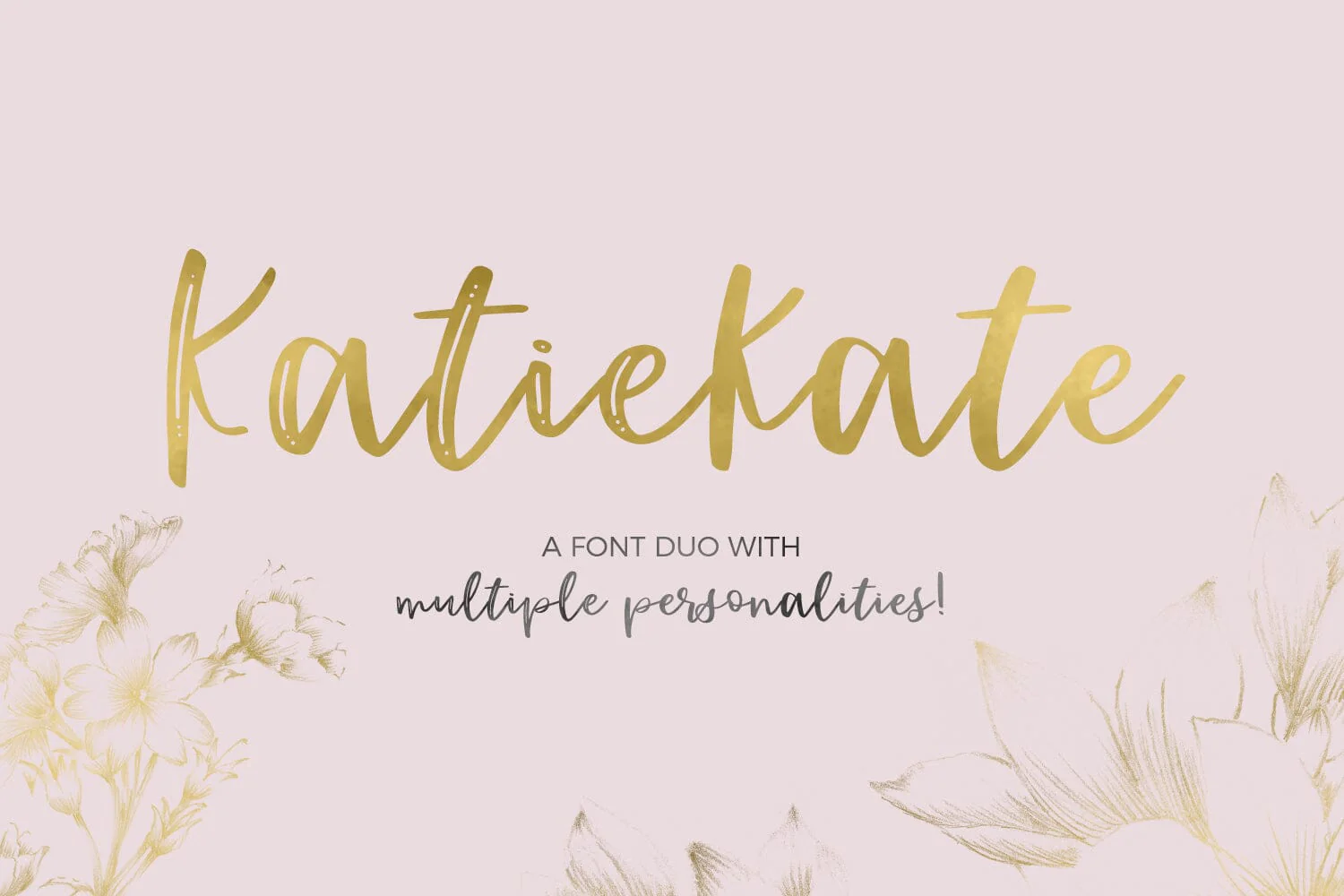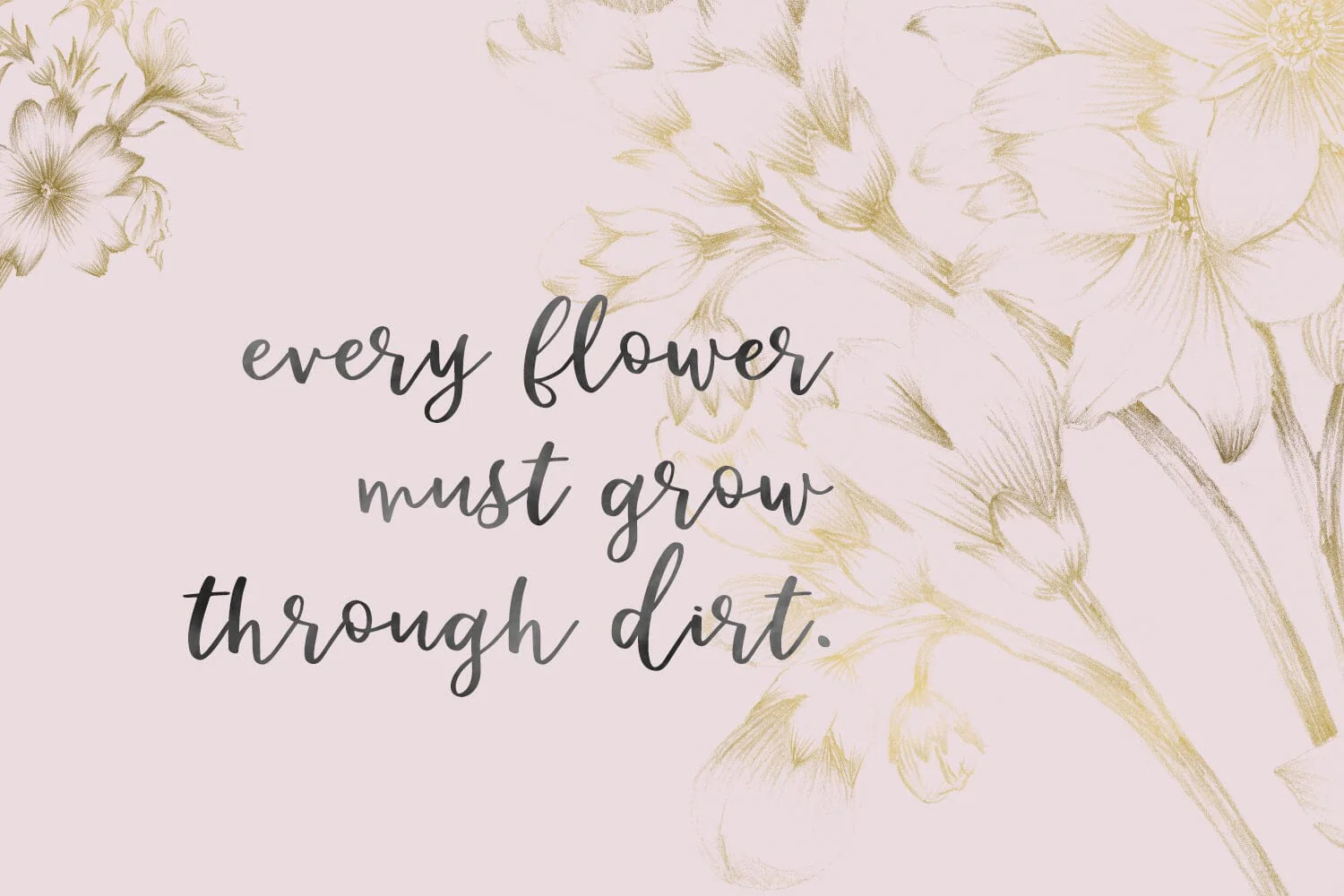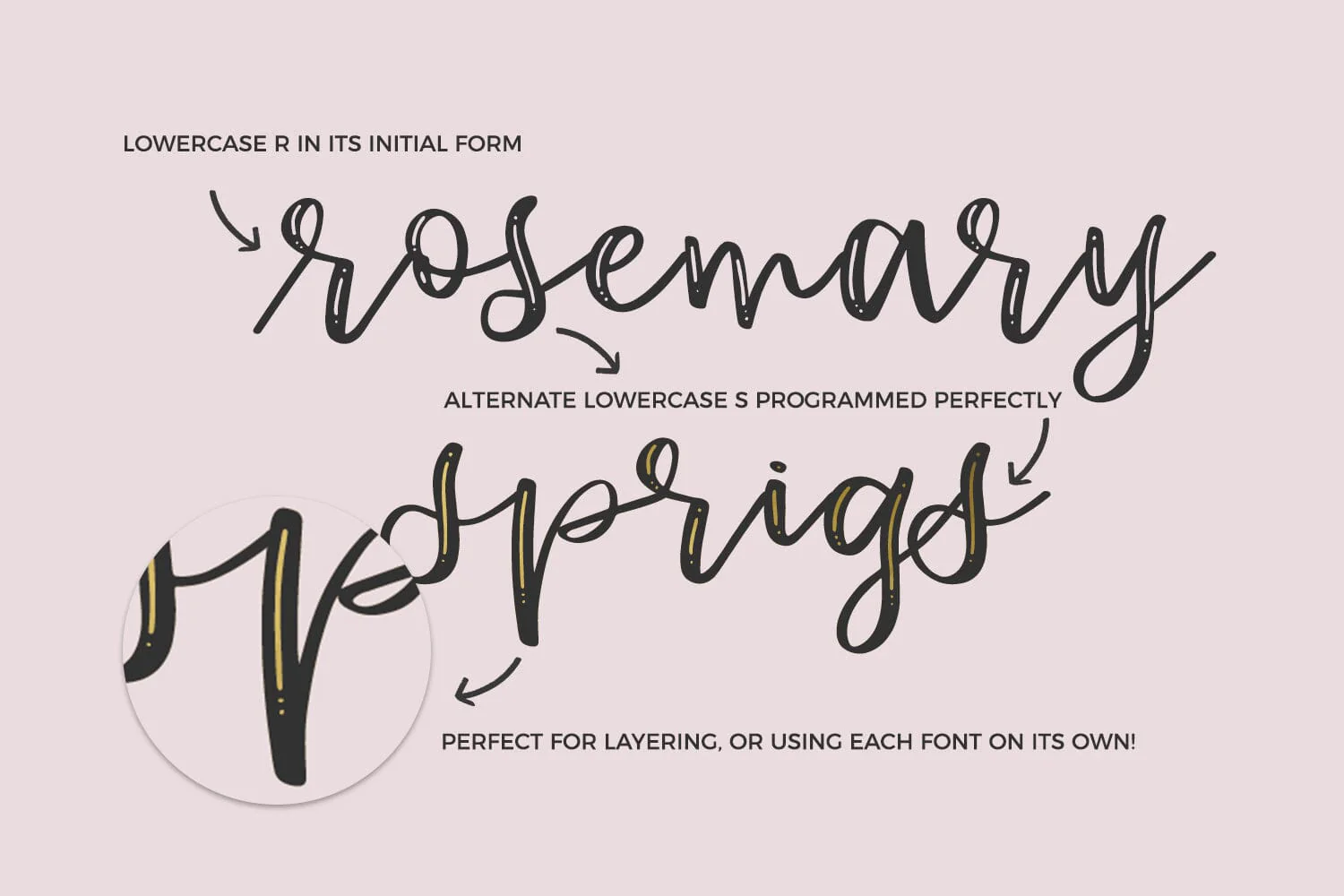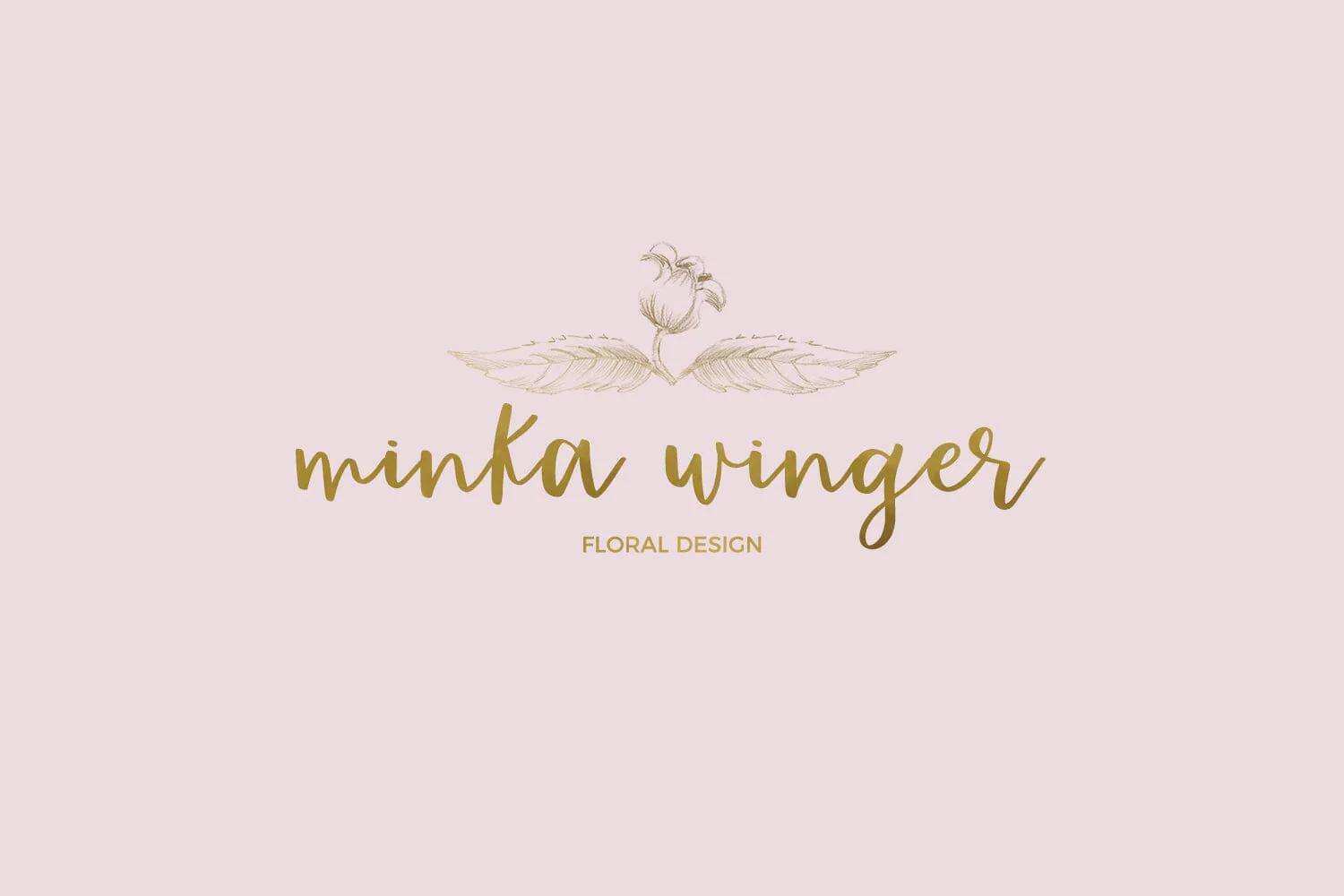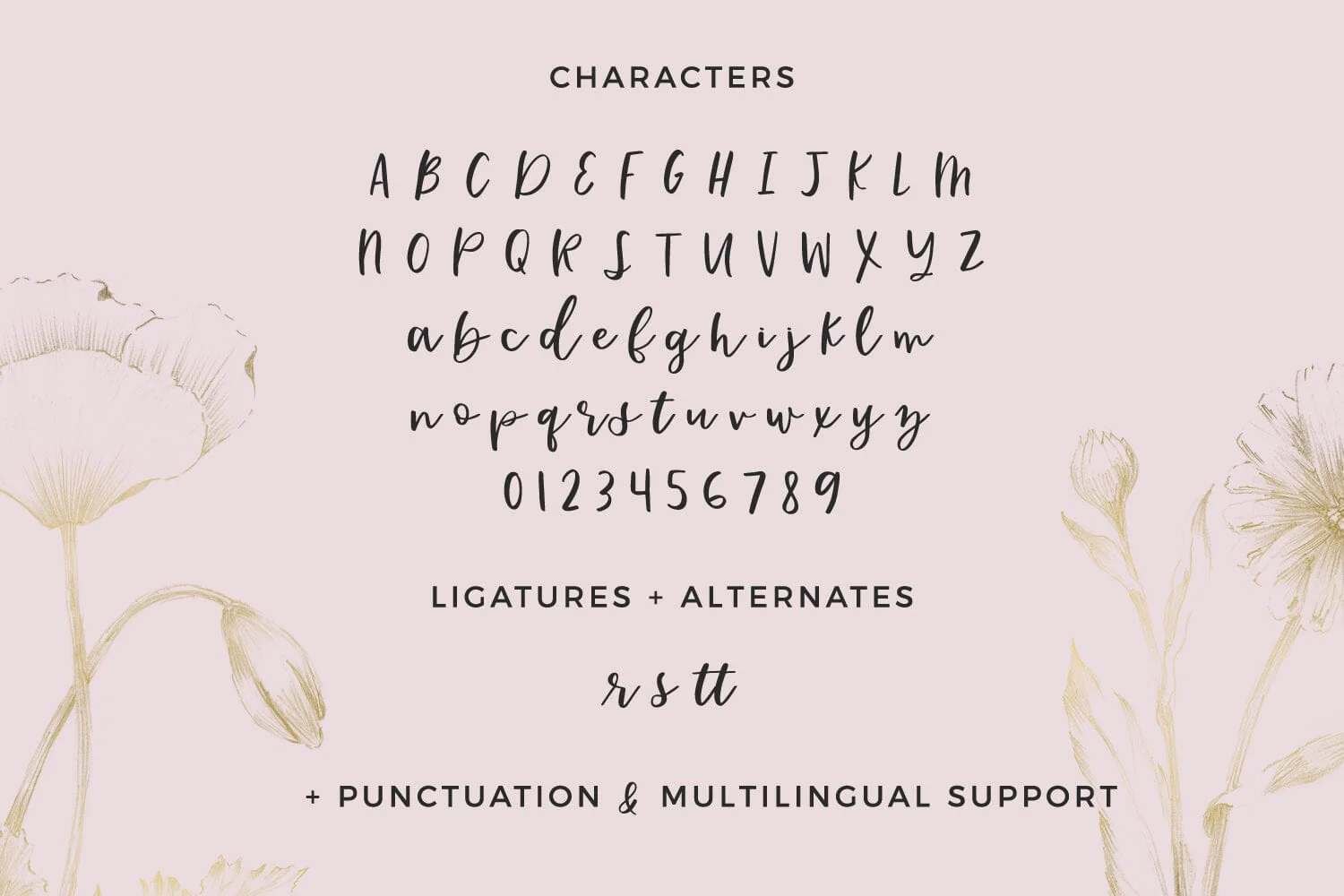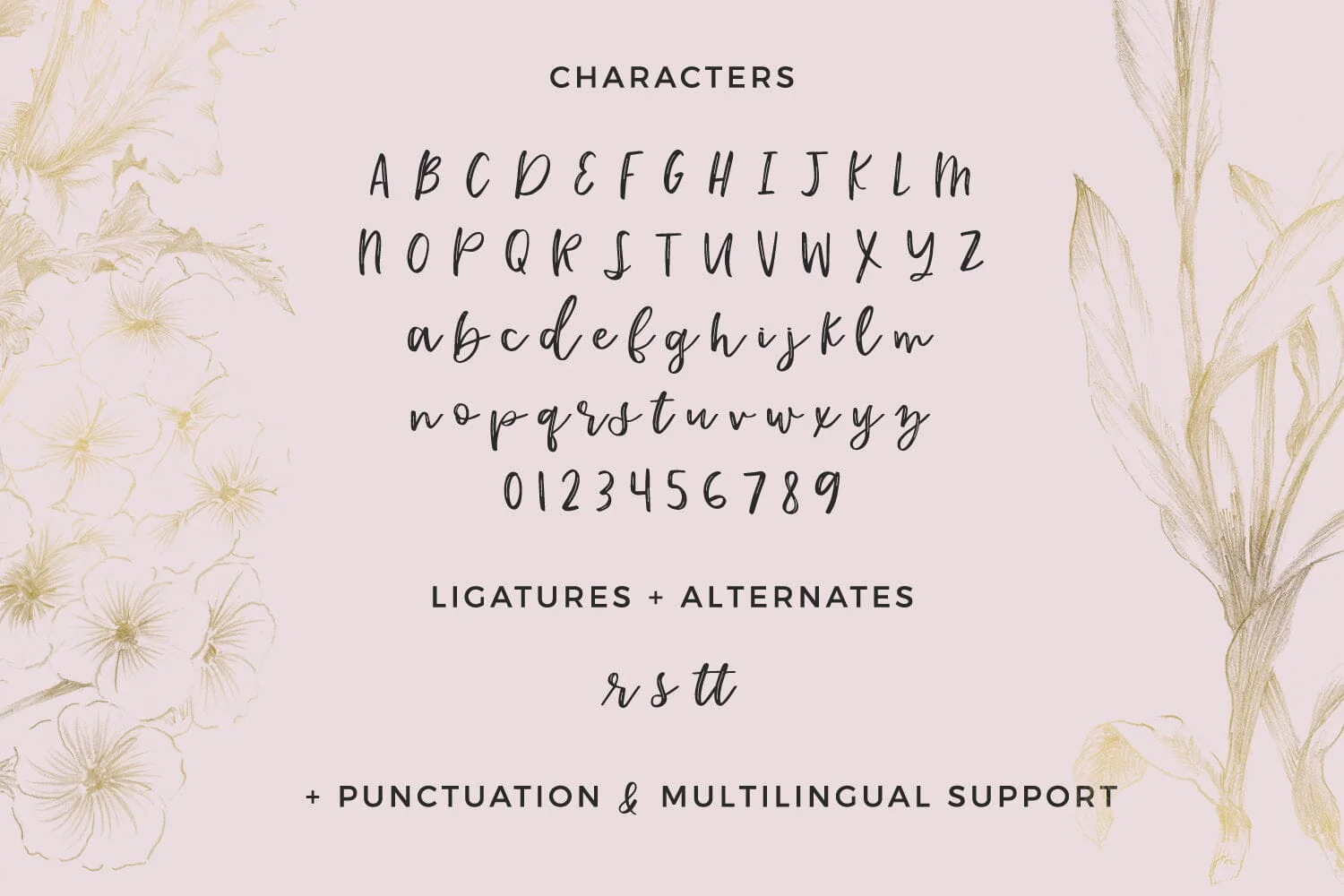
Katiekate Calligraphy Font Duo
Meet Katiekate, a font duo with multiple personalities — an inline version to have a little fun, and a solid version for a little seriousness. Each font is perfect by itself, or layered for a little added pizzazz. Katiekate is a little modern calligraphy, a little casual script, and perfect for your next logo or brand project, invitation suite, magazine layout, or product design.
Katiekate includes Western European language support, a few special OpenType features, and is also PUA-encoded. Includes .otf, .ttf, and web font versions for both fonts.